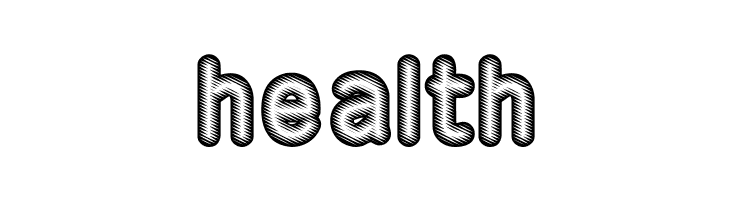
• Digidon Demo
• Kremlin Minister Black 3D Bold
A bold, 3D decorative font with a modern yet vintage flair.
• Gatsby Inline
A bold, decorative font with vintage Art Deco influences and inline detailing.
• Is that clear?
A bold, decorative font with a distressed, vintage look.
• Helleplus32
A bold, decorative font with outlined characters and strong contrast.
• Union soap